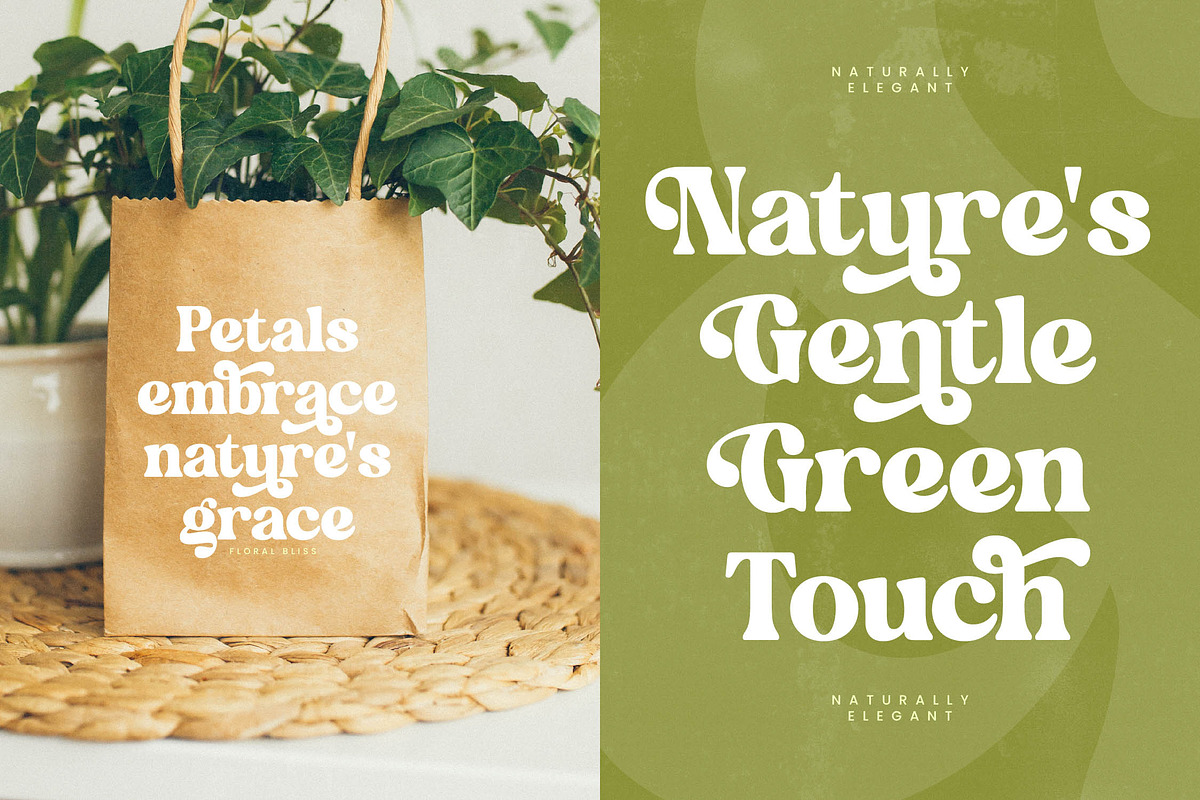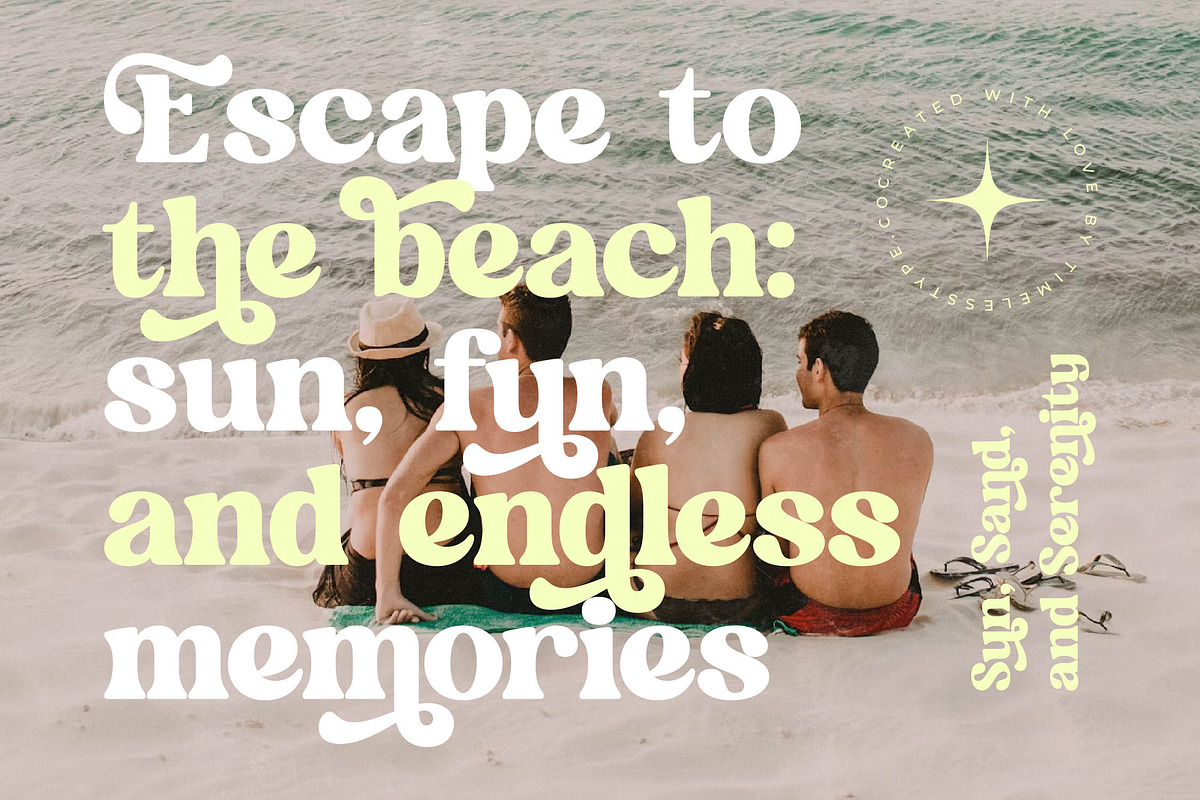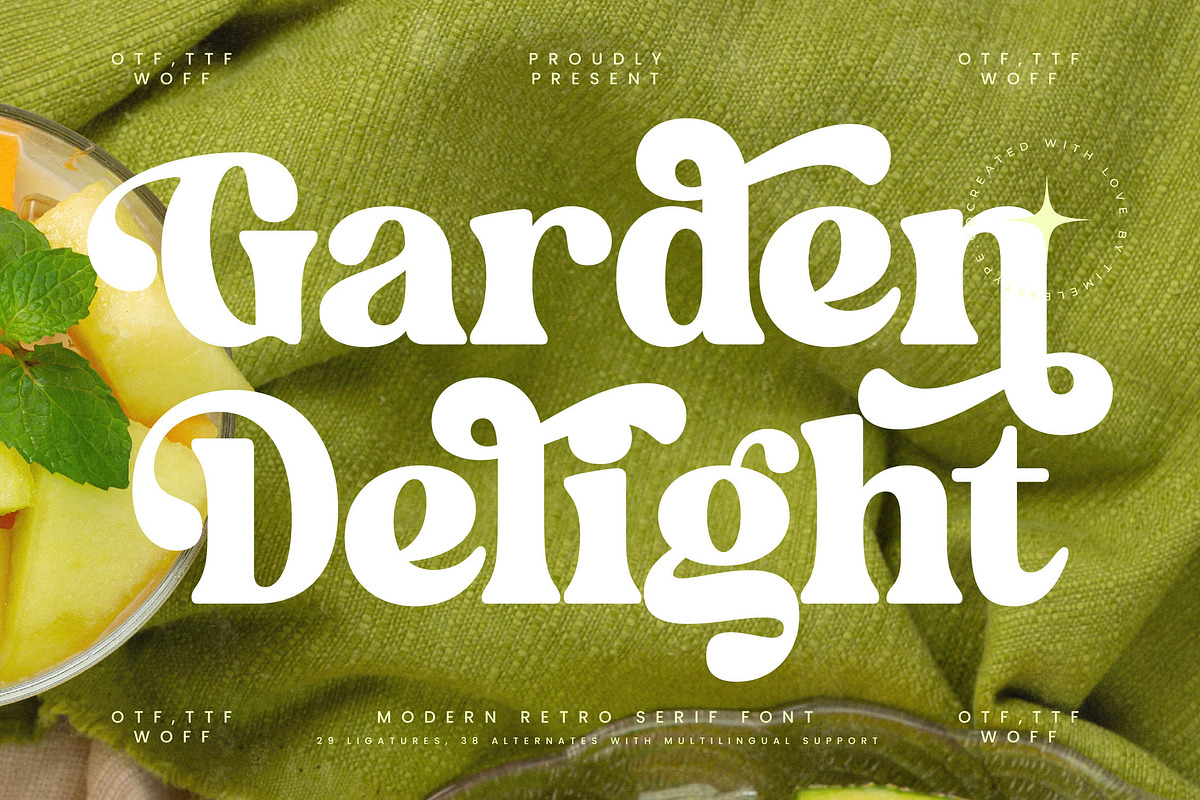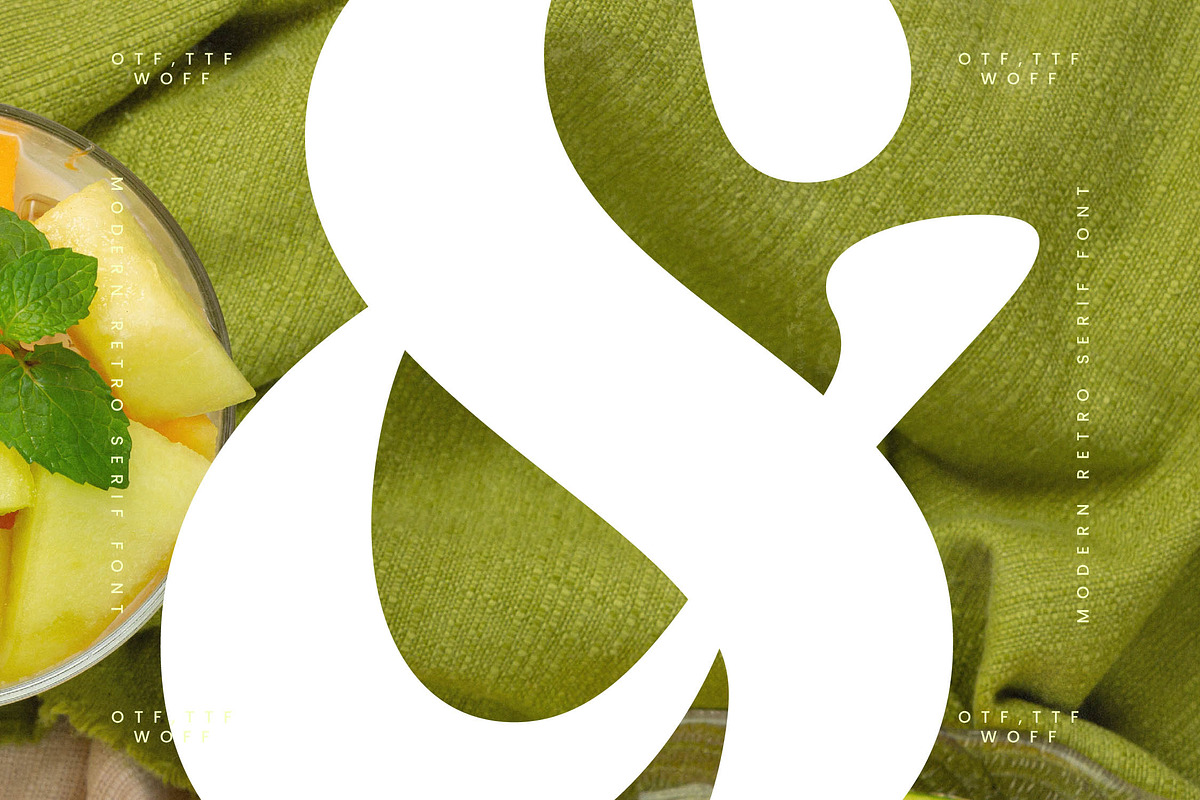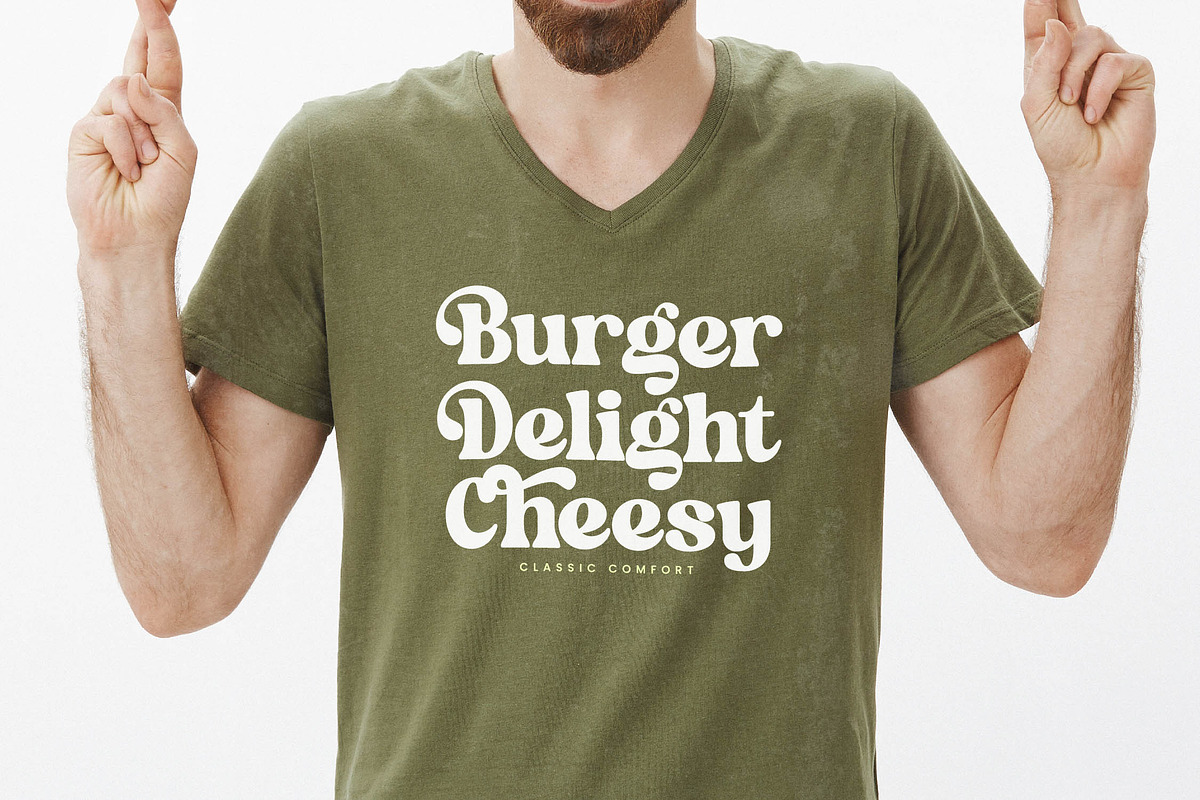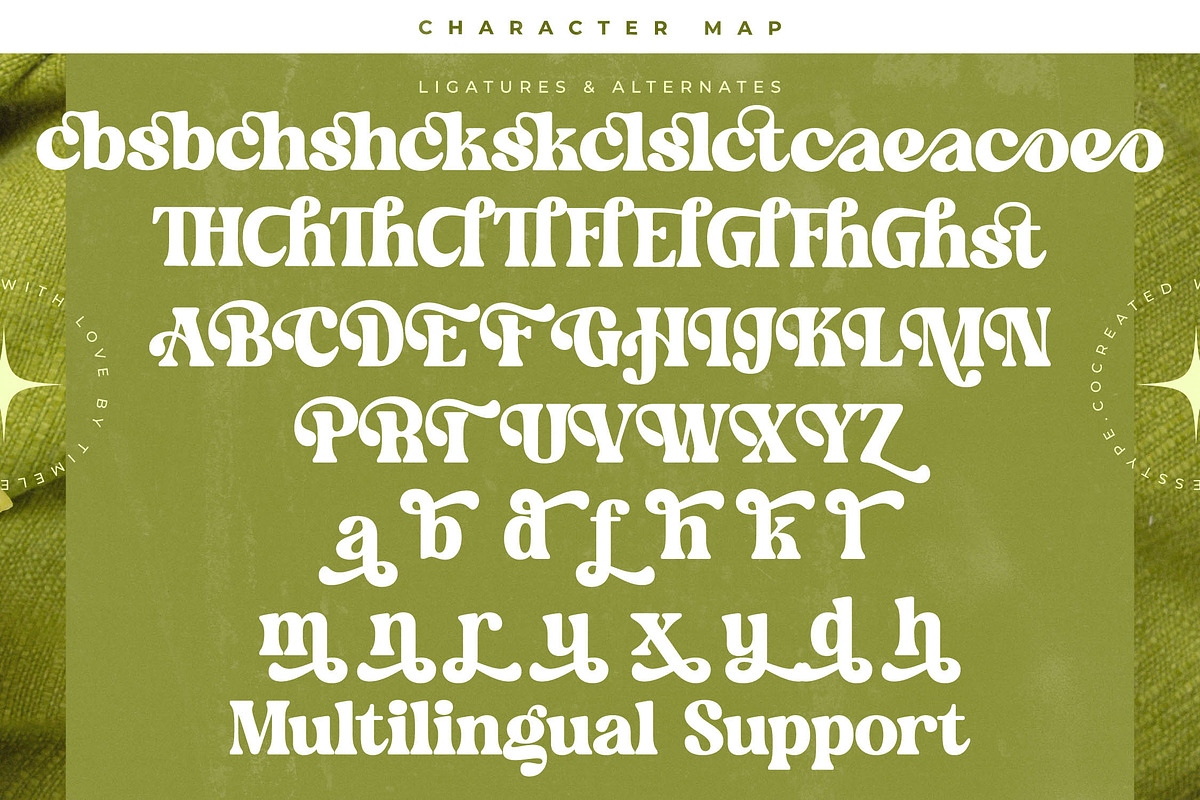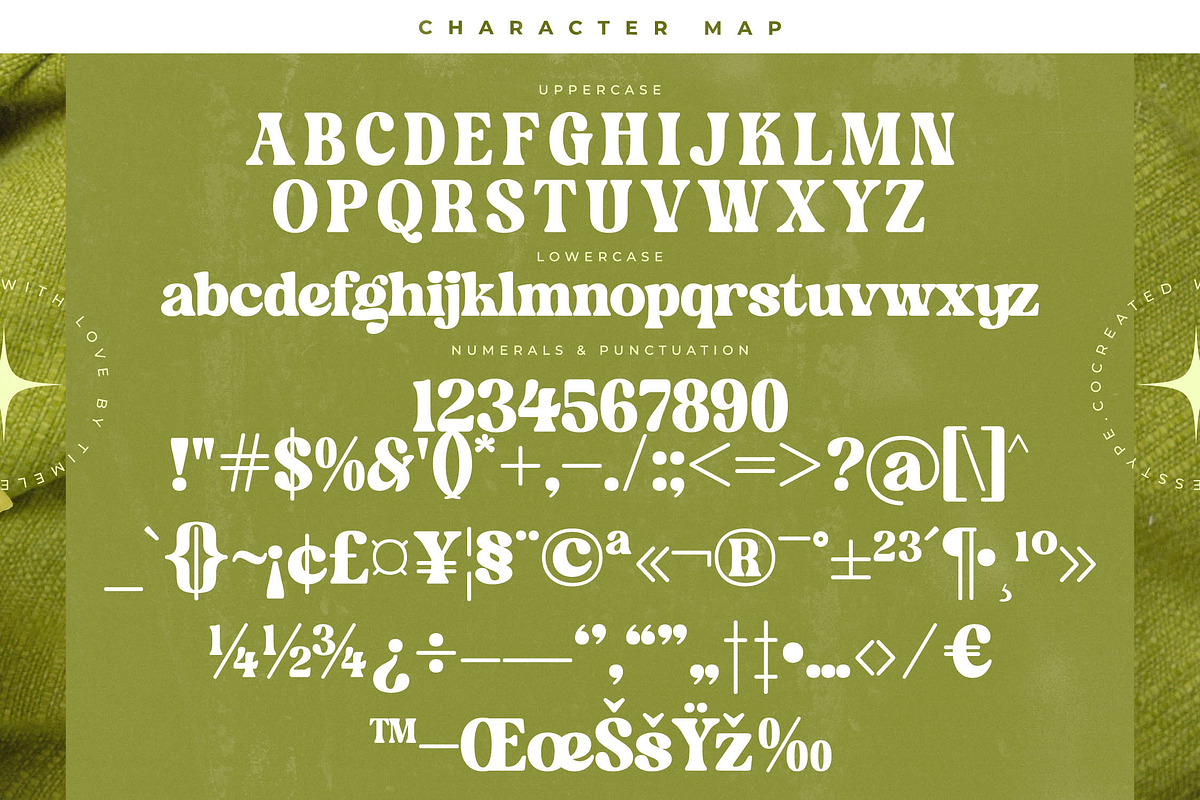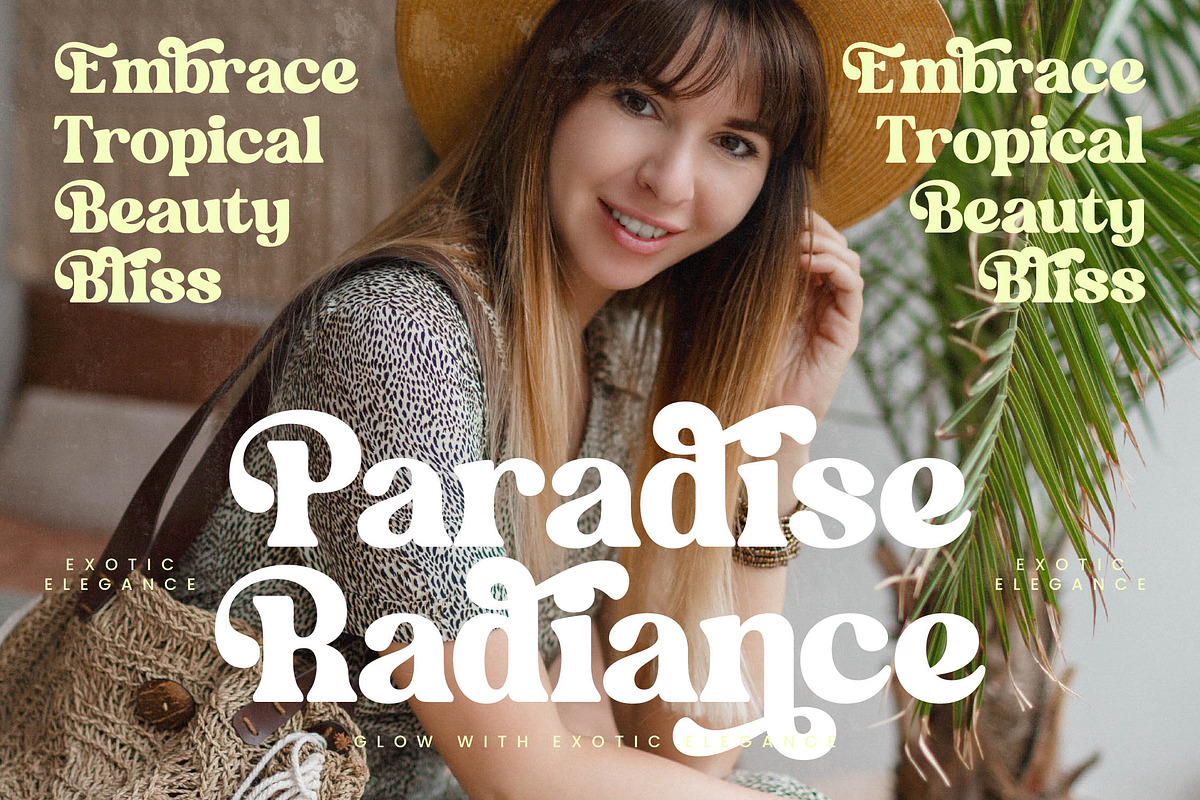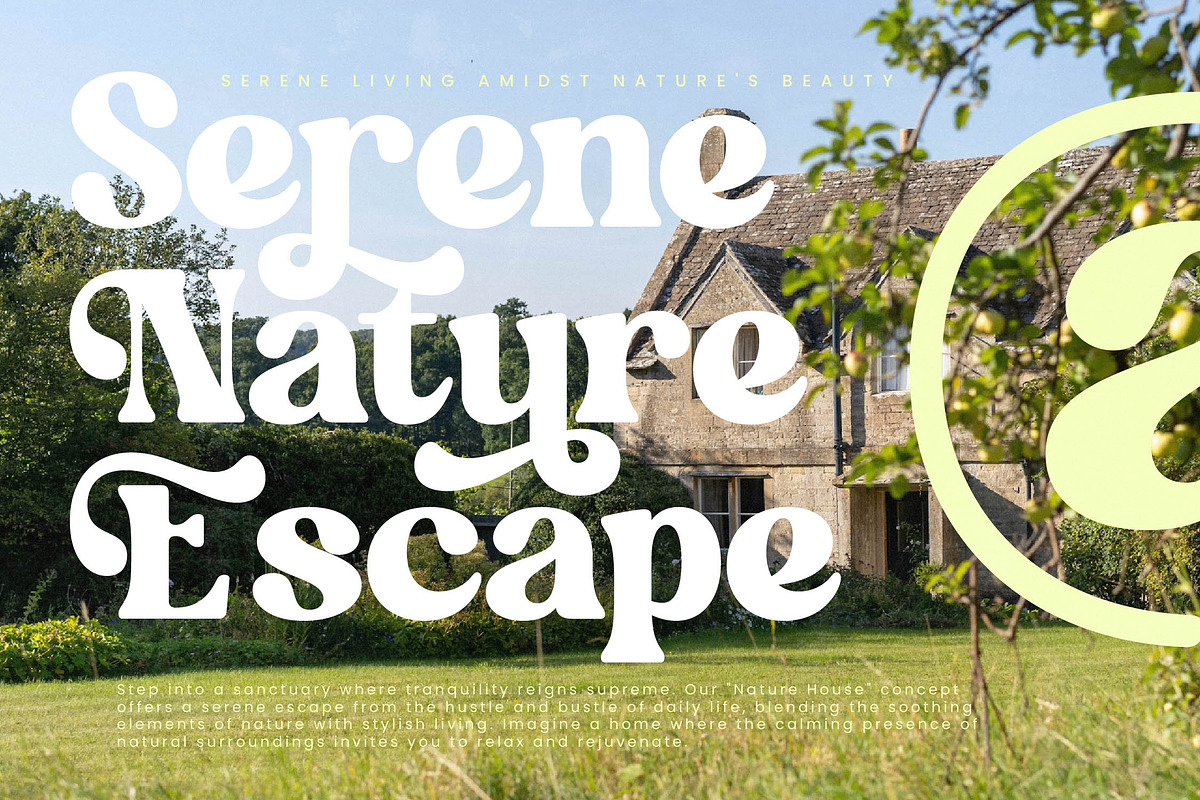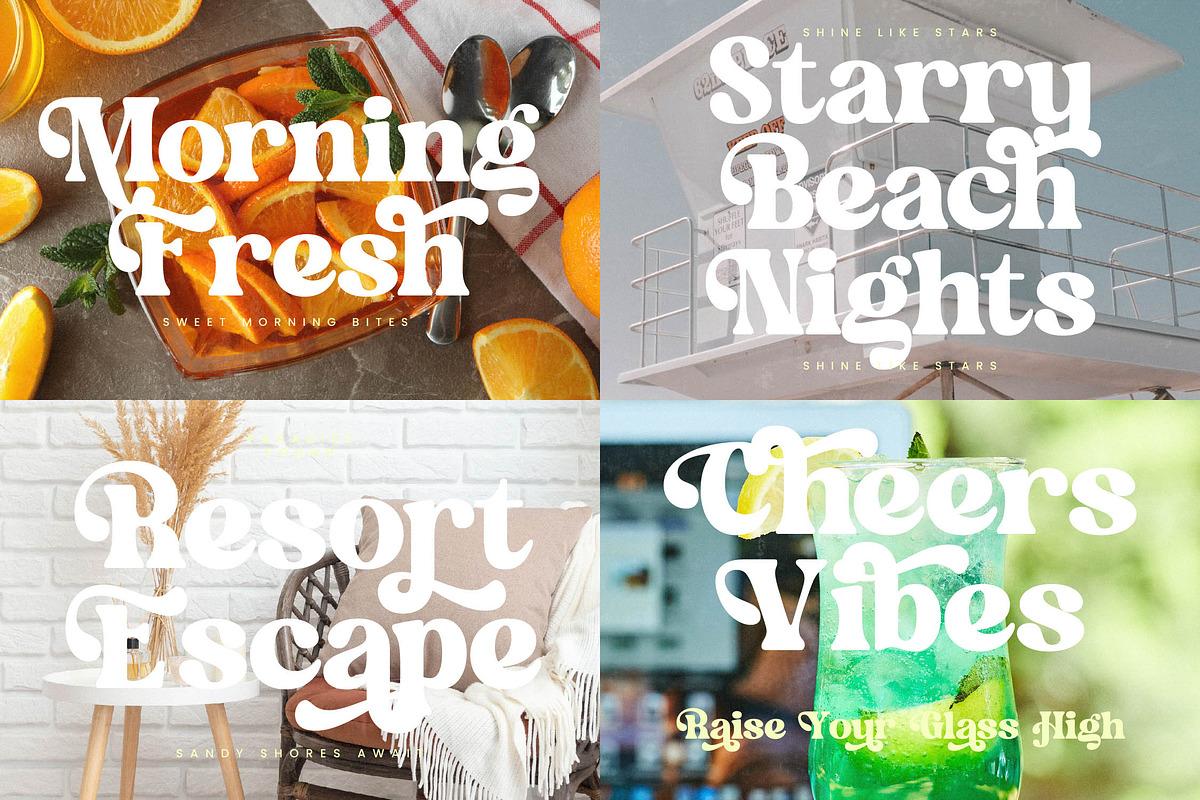
Garden Delight Modern Retro Serif
Garden Delight breathes fresh life into classic aesthetics, offering a whimsical dance of curves and substance that captures the heart of every creative project. It is more than just a typeface; it is a visual invitation to a world where elegance meets playful sophistication.
Inspired by the sun-drenched vibrancy of a summer morning and the organic flow of nature, this font echoes the groovy, fluid letterforms of the 1970s while maintaining a sharp, contemporary edge. The design mimics the natural silhouettes of a blossoming garden, blending soft, rounded terminals with bold, commanding strokes to create an atmosphere of warmth and high-end charm.
This modern serif display is engineered for maximum branding impact, delivering a luxury typography experience that feels both familiar and groundbreaking. With its high-contrast serif design, it acts as a premier editorial font for designers who need their headlines to command attention and radiate refined confidence.
Perfectly aligned with the current modern serif trend, this typeface addresses the growing demand for character-driven typography in a sea of minimalist designs. It stands at the forefront of the movement toward editorial display fonts that prioritize personality and uniqueness without sacrificing professional readability.
From high-end logo design to cohesive visual branding, Garden Delight is remarkably versatile for any editorial layout or luxury packaging concept. It brings a romantic flair to wedding stationery and a sophisticated edge to fashion magazines, ensuring your message is delivered with style.
This comprehensive typeface package includes a vast library of ligatures and unique alternates that allow for custom-tailored designs with ease. It features fluid swashes and full multilingual support, including a wide range of international characters to ensure your brand speaks to a global audience.
- Ligature 29 Alternate 38